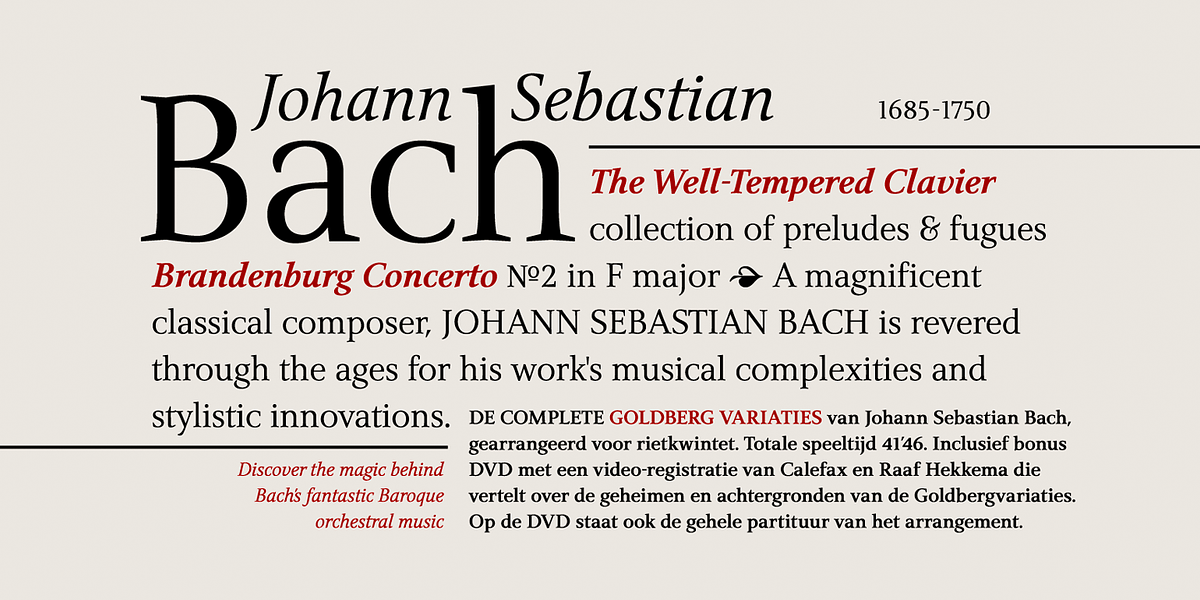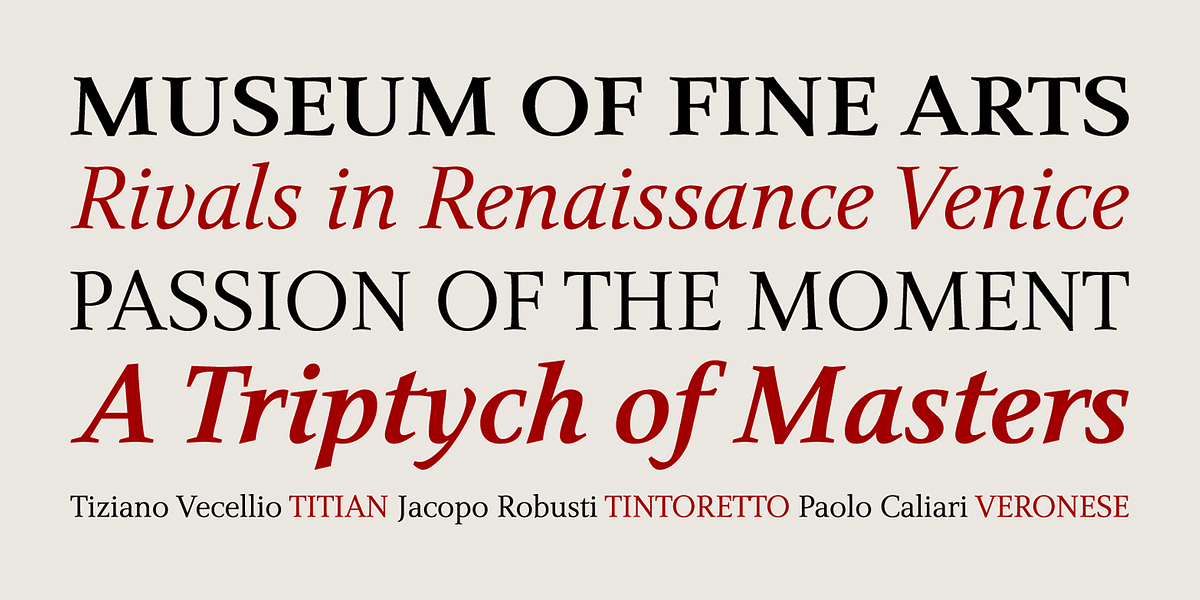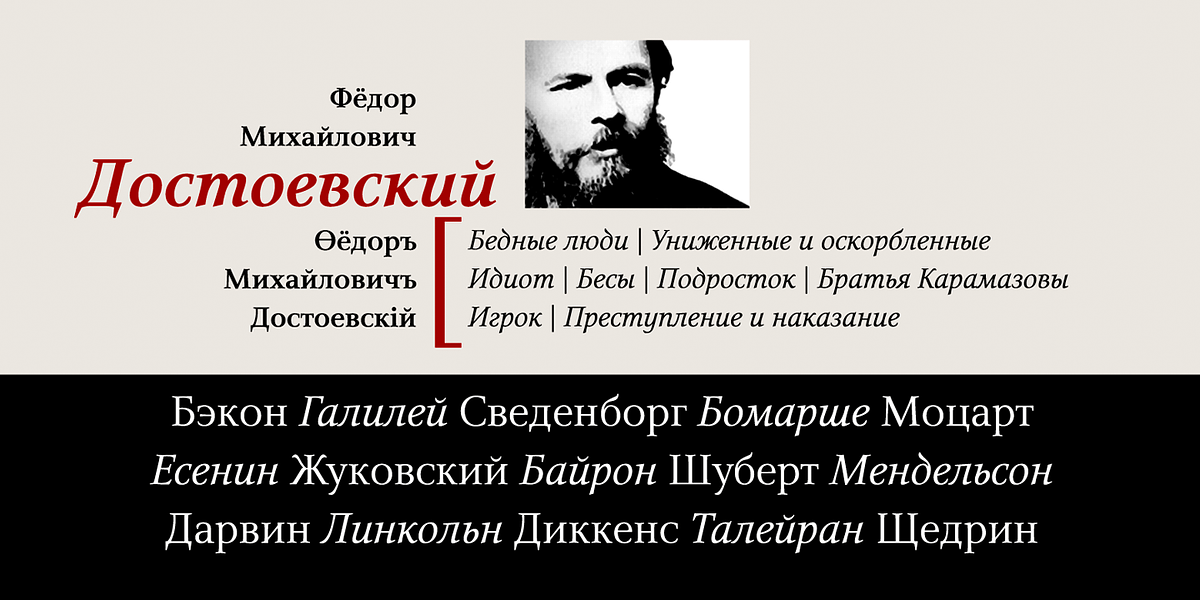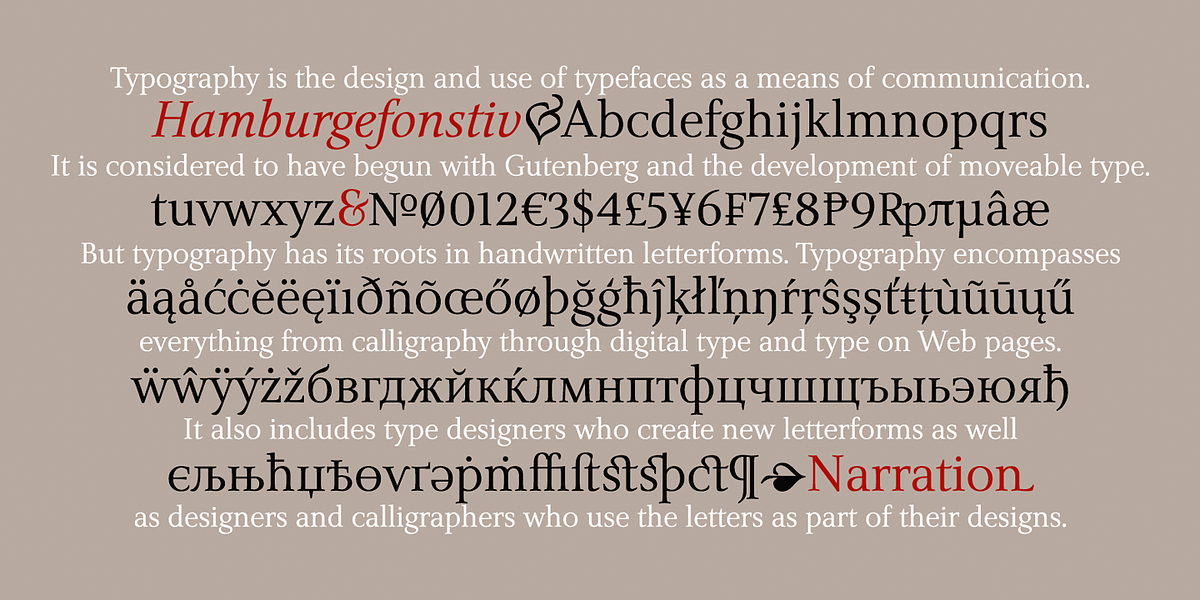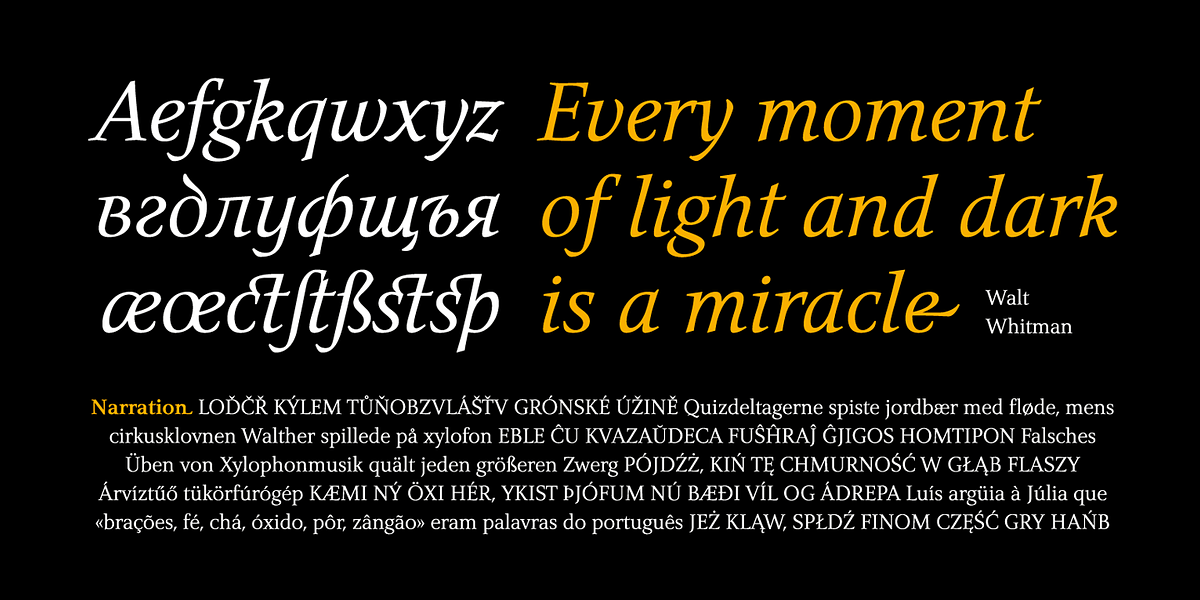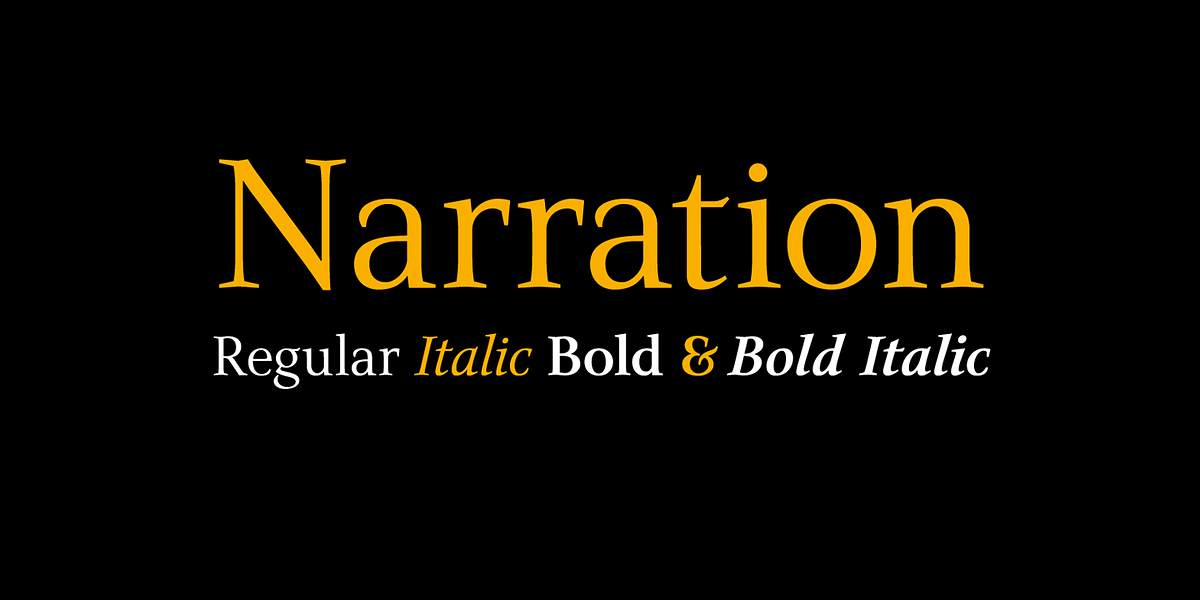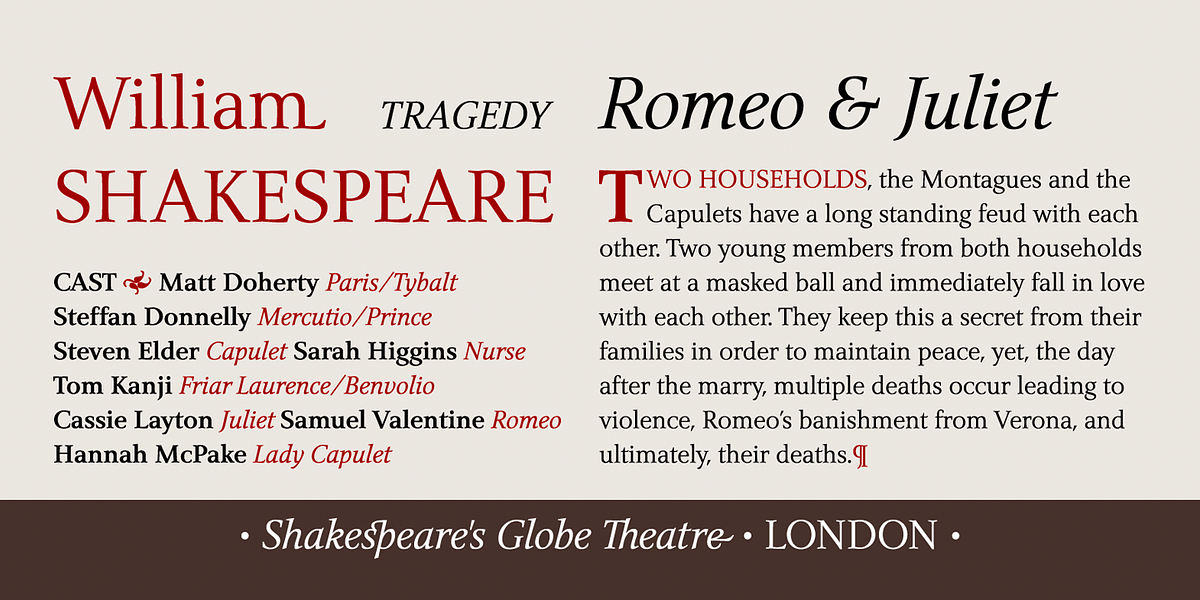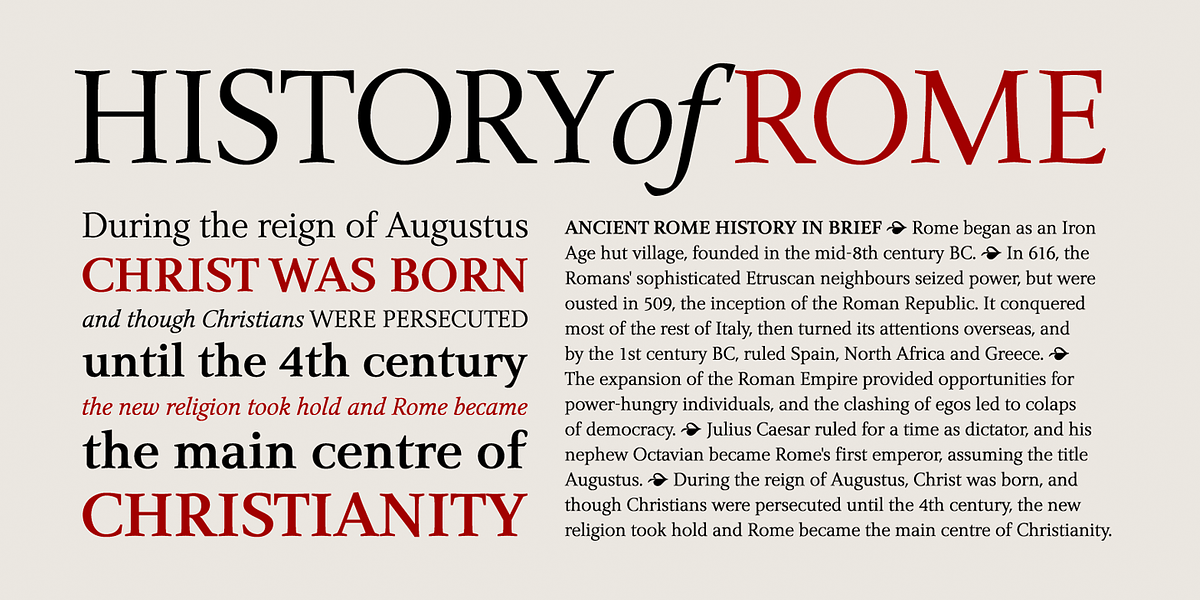
Narration
Narration is a serif font designed with elegance and readability in mind. Its inspiration draws from both the Renaissance and neoclassical periods, as well as Roman lapidary inscriptions. This results in a typeface that is well-suited for publications requiring a touch of sophistication, such as historical, archaeological, or artistic texts. Additionally, its versatility extends to fashion branding, cosmetic labels, and wine bottle designs.